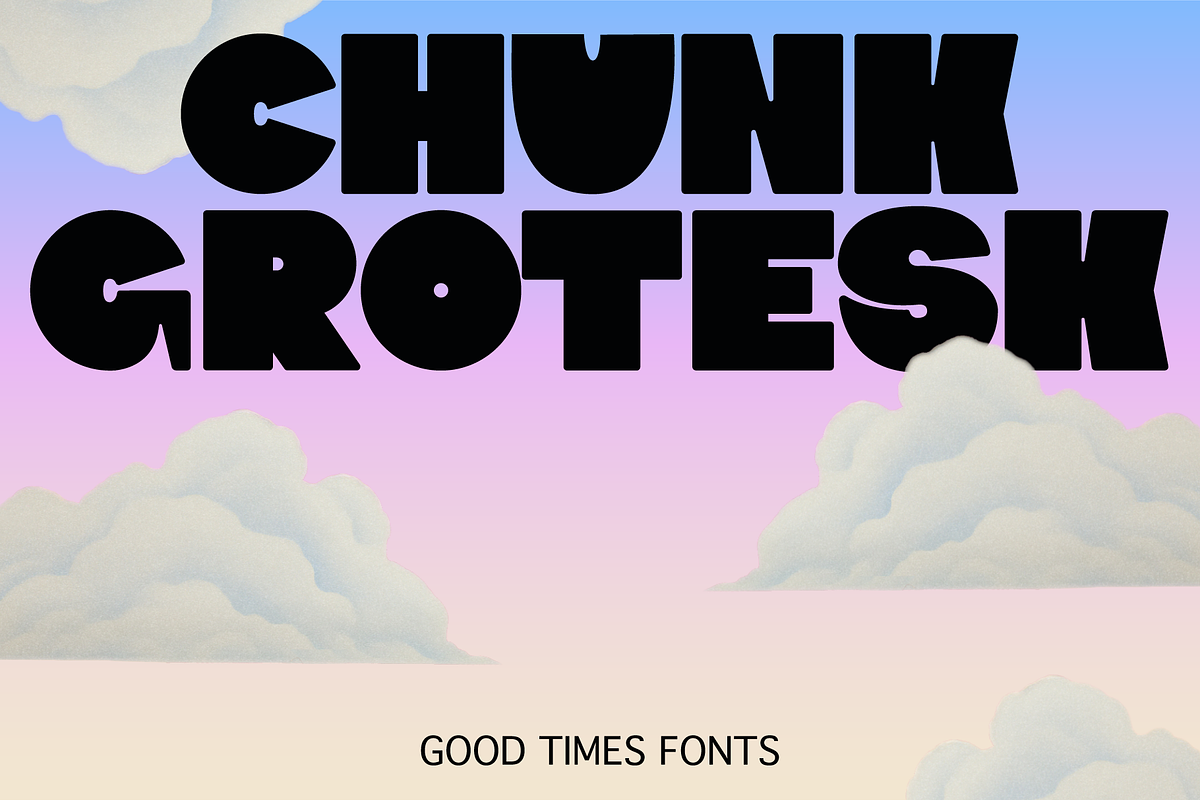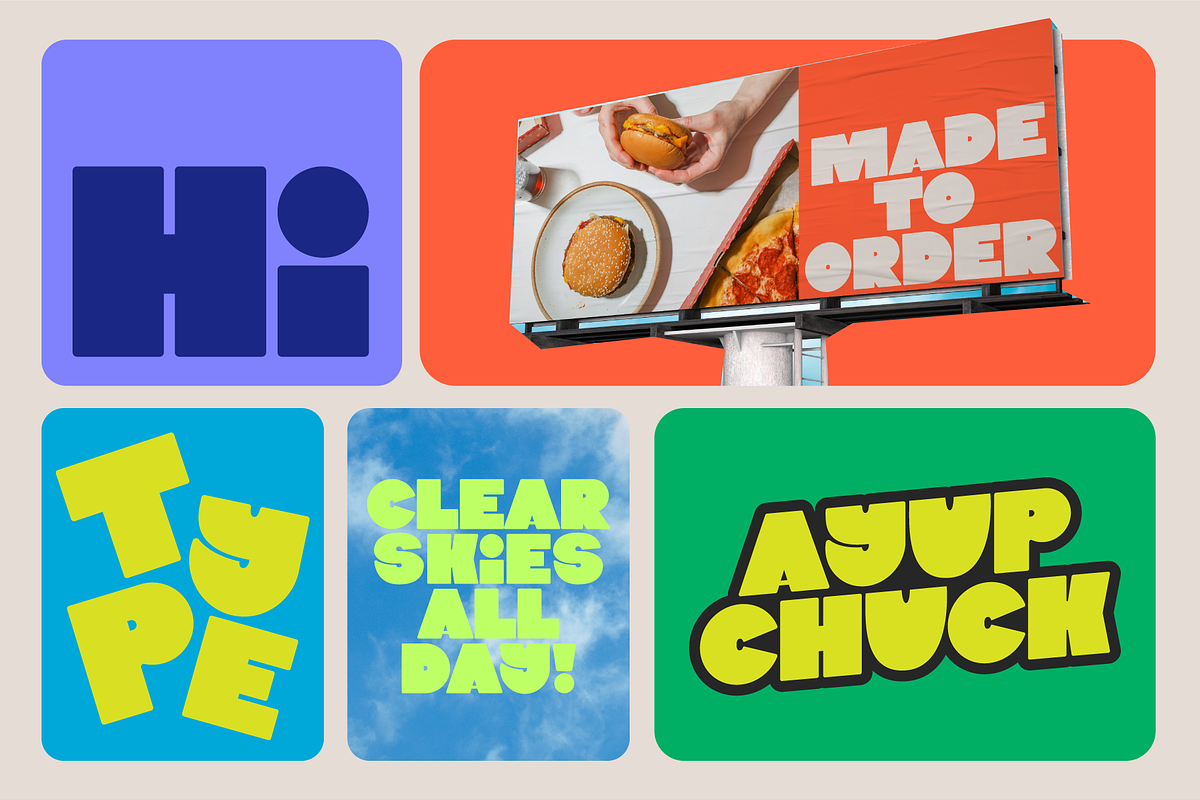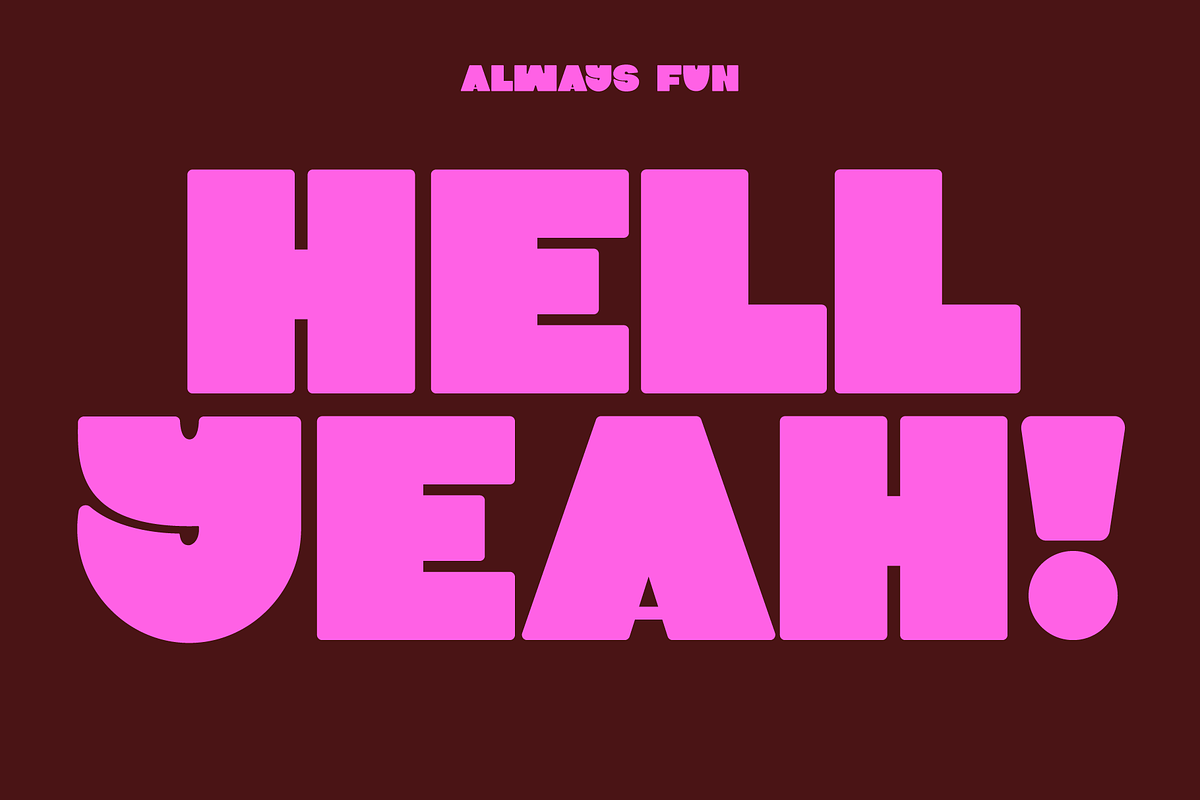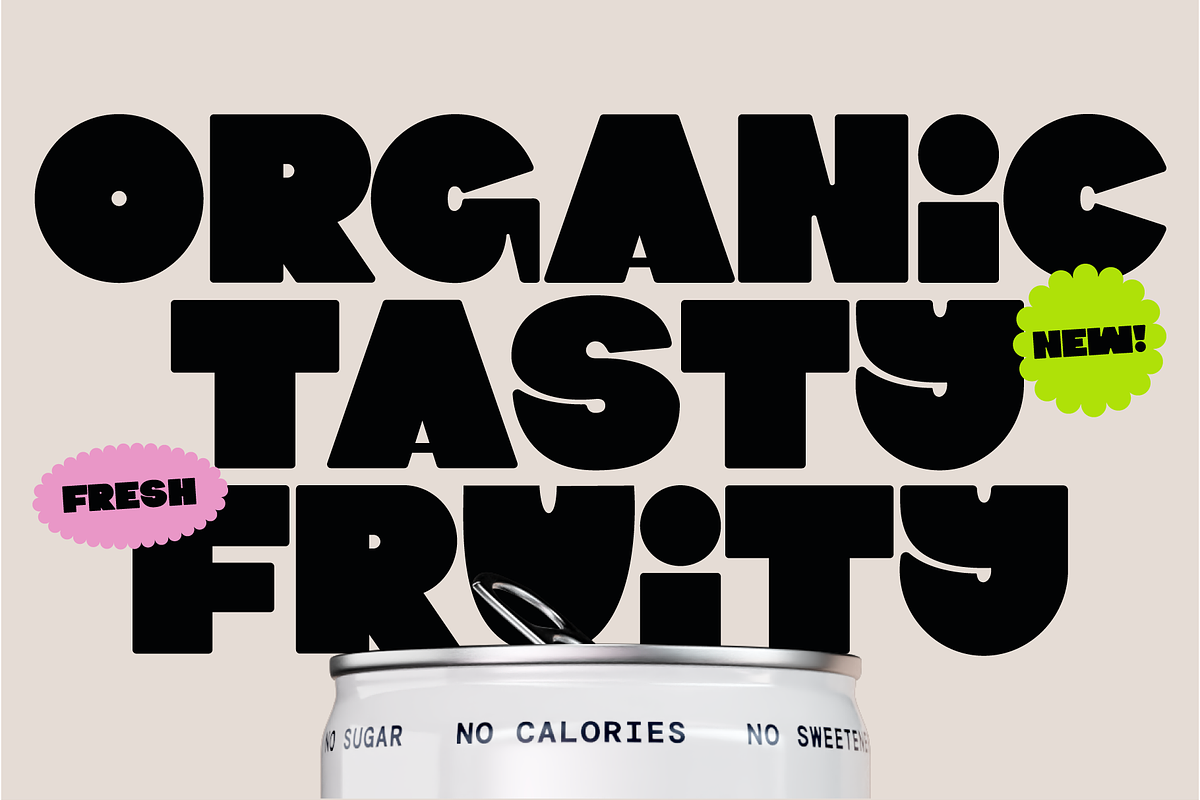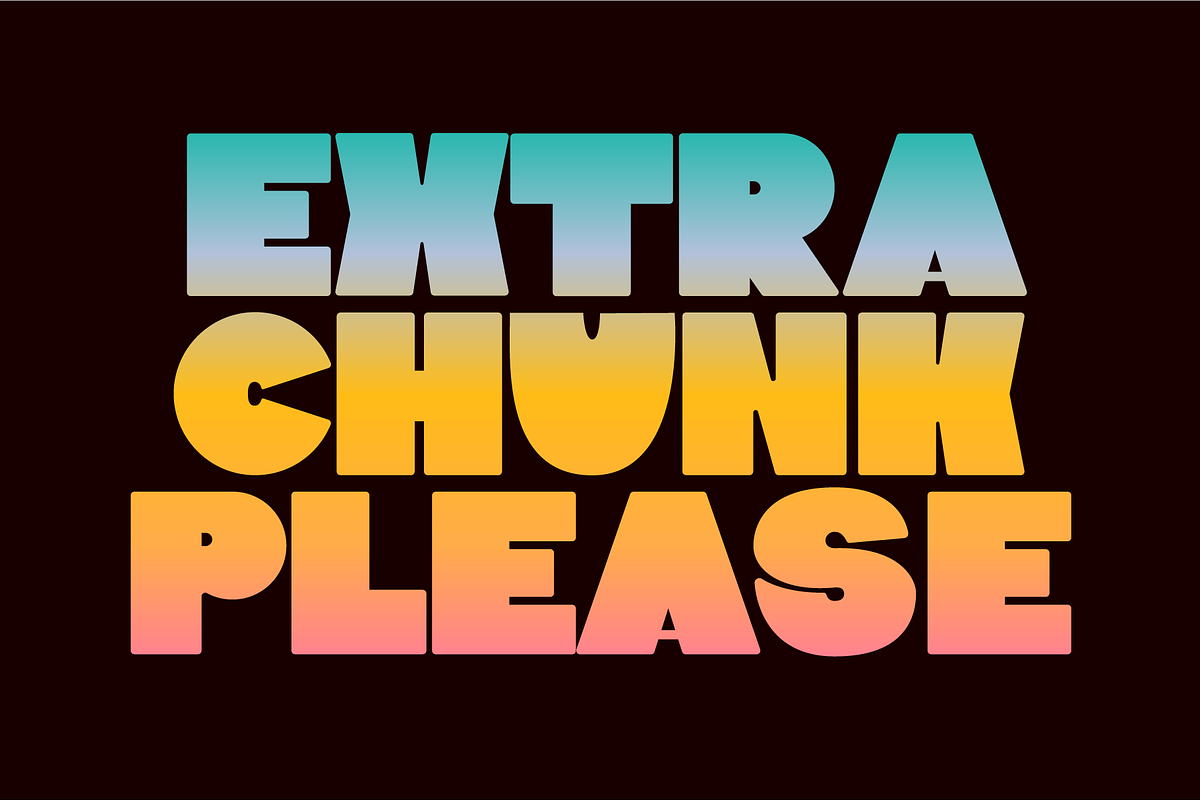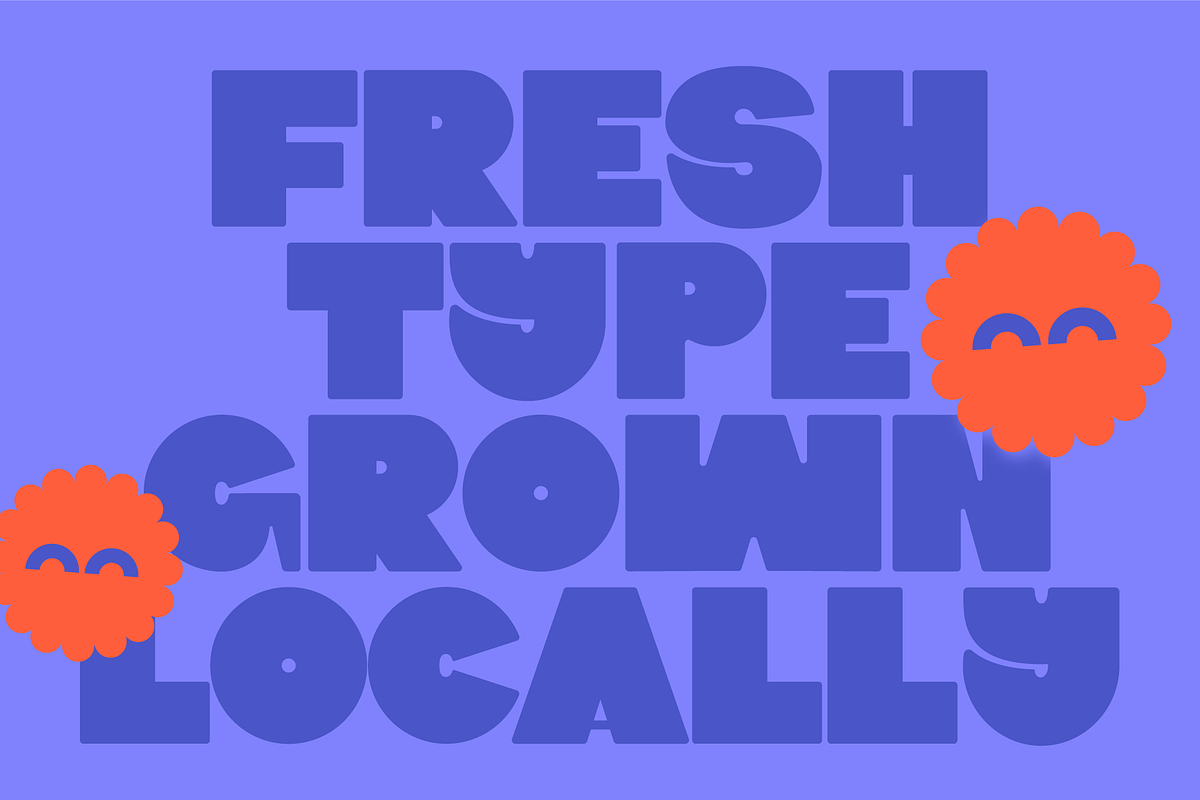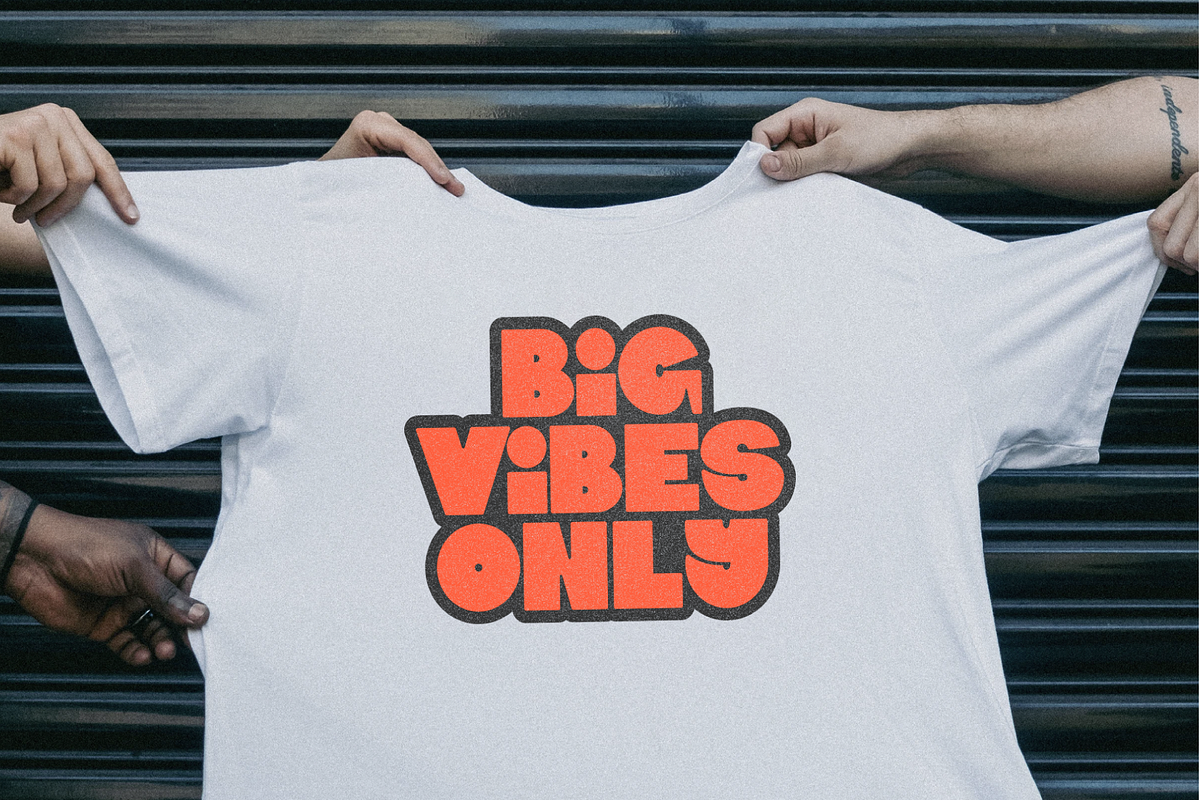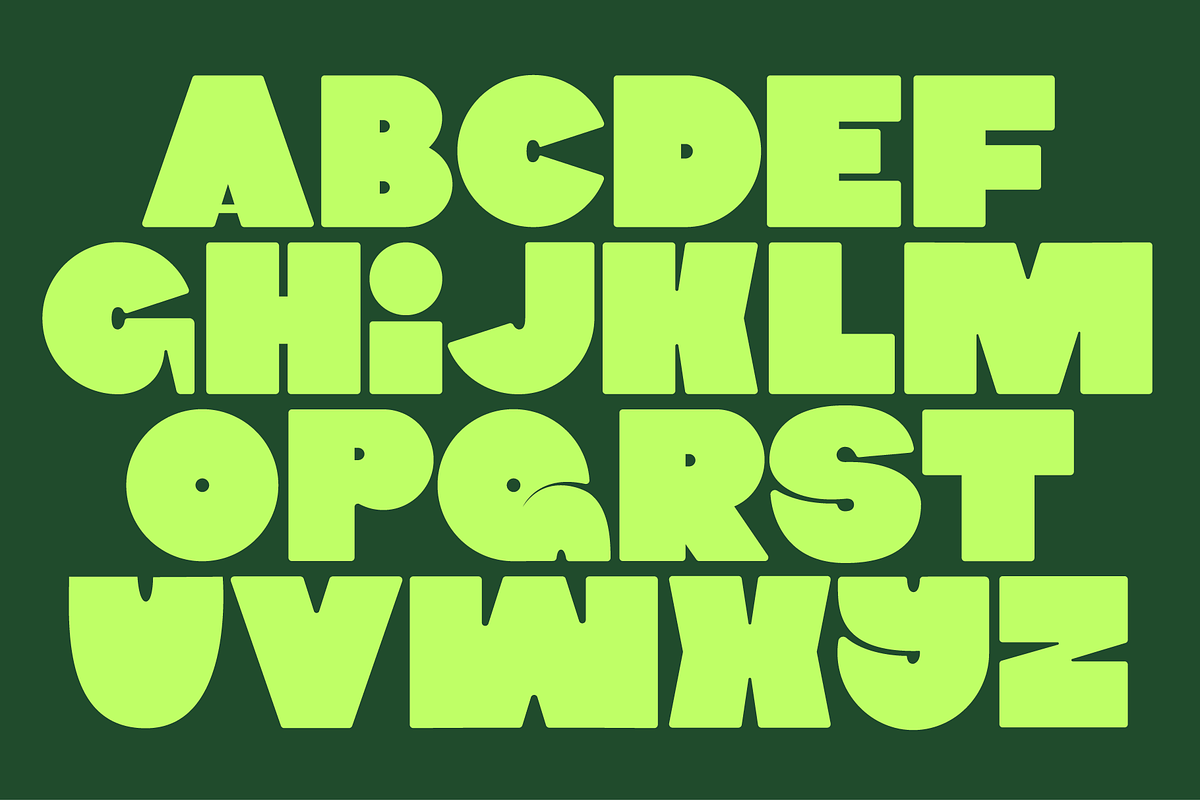
Chunk Grotesk – Bold, Playful, Loud
Introducing Chunk Grotesk, a heavyweight display font that doesn’t whisper, it shouts. Designed for big impact and unforgettable visuals, this font brings unapologetic energy to your creative projects. With exaggerated proportions, punchy geometric shapes and confident presence, Chunk Grotesk is built to stand out on posters, packaging, branding, headlines, album covers and more.
- Eye-catching editorial layouts
- Streetwear and music branding
- Bold logo design
- Retro-inspired graphics
- Social content that slaps
Why designers love it: Chunk Grotesk walks the line between retro brutalism and modern attitude. It’s graphic, fun and made for expressive typography. Use it loud and proud.